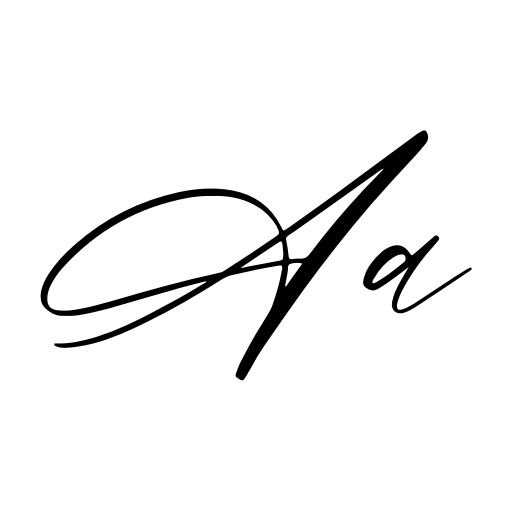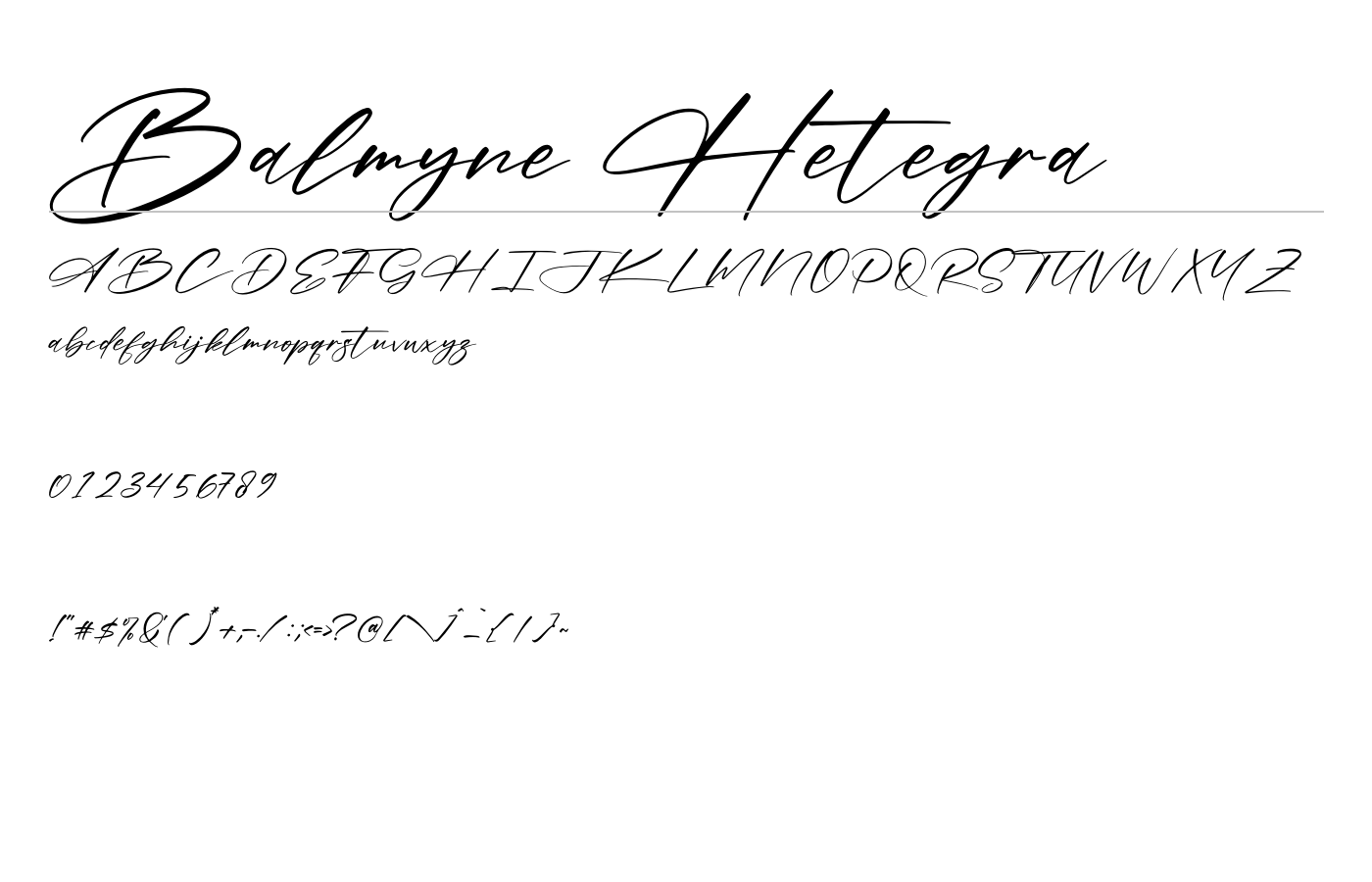
Balmyne Hetegra is an elegant script font that features delicate, flowing strokes with a modern handwritten feel. Its thin, graceful lines and fluid letterforms create a refined and sophisticated look, perfect for luxurious branding, invitations, and creative design projects that seek a personal yet polished touch. This font works best in headlines and logos where its unique style can stand out with charm and elegance.
Balmyne Hetegra Font
About Balmyne Hetegra Font